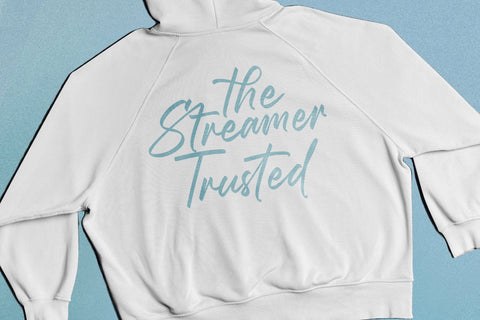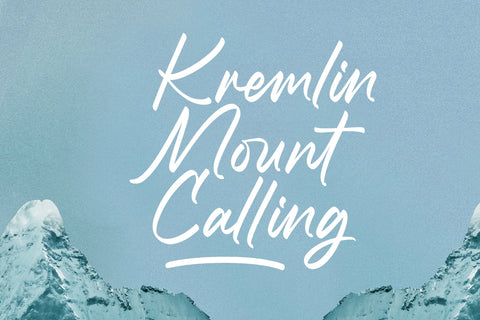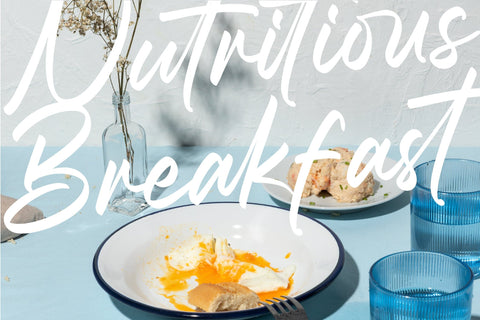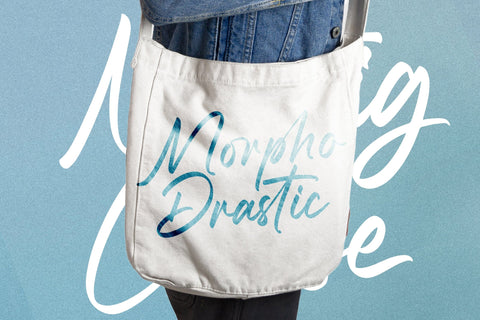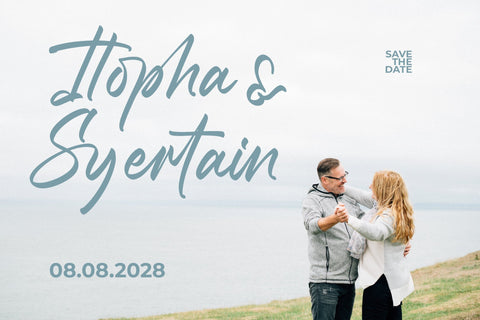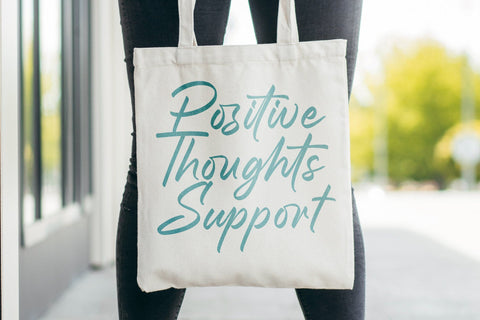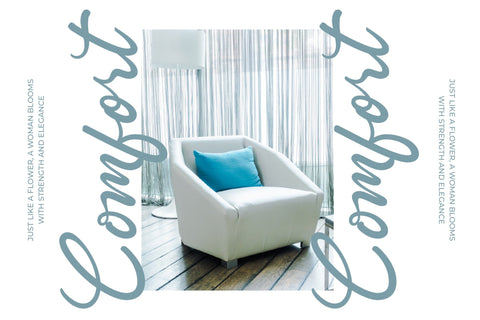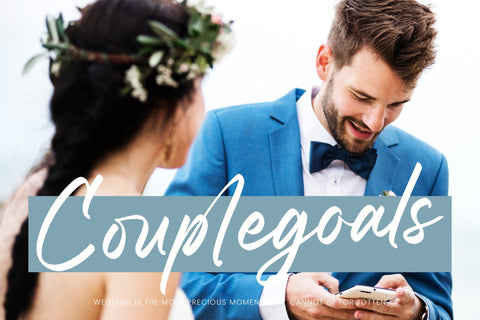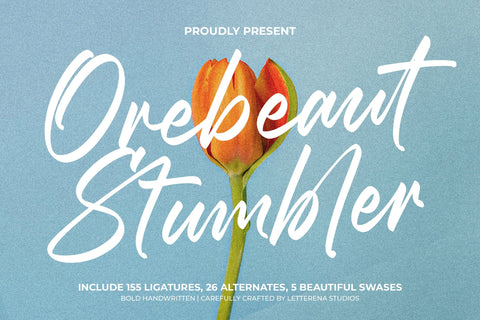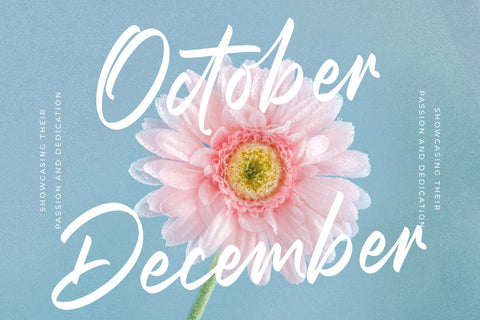
Orebeaut Stumbler - Bold Handwritten Font
Orebeaut Stumbler - Bold Handwritten Font , from Letterena, is a Luxury Script font, suitable for any projects such as: logos, branding projects, homeware designs, product packaging, mugs, quotes, posters, shopping bags, t-shirts, book covers, name card, invitation cards, greeting cards, label, photography, watermark, special events, and all your other luxury and beautiful projects that need a Luxury Script taste.
Ligature 155 Alternate 26 & 5 Swashes